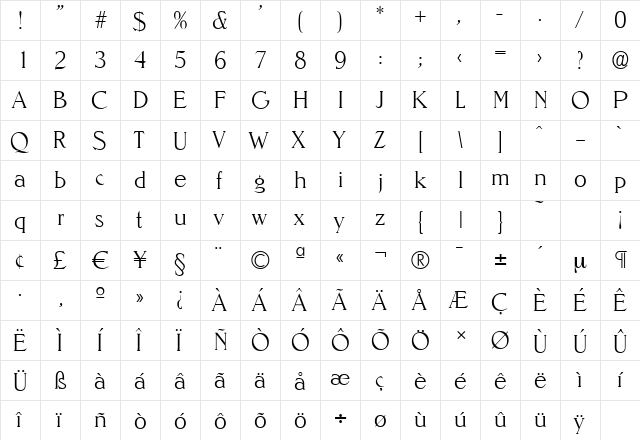
NevadaSerial-Xlight Regular
Design Context for NevadaSerial-Xlight Typeface
NevadaSerial-Xlight takes a measured approach to typography — its balanced proportions and neutral character make it a reliable workhorse for both digital and print work. The delicate stroke weight brings airiness and refinement to layouts.